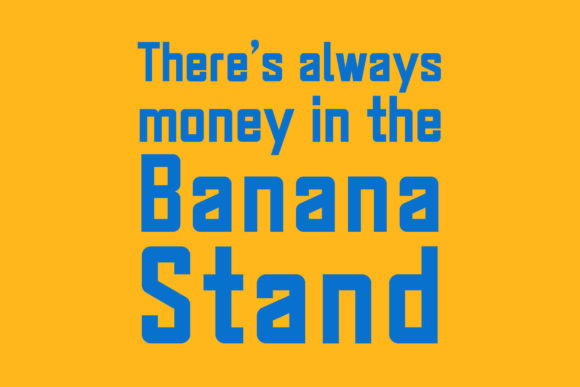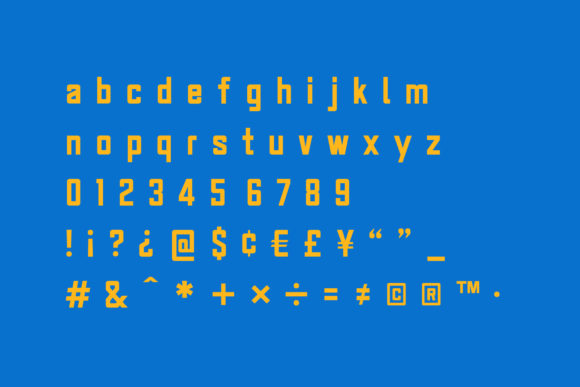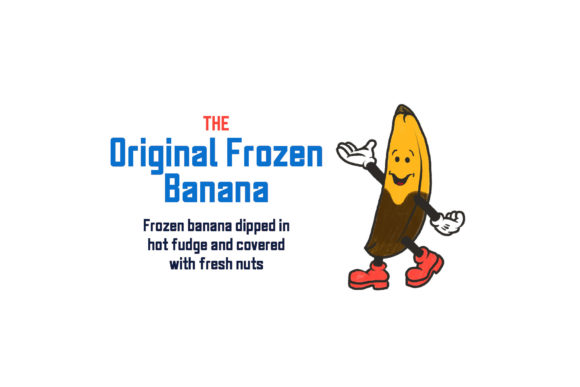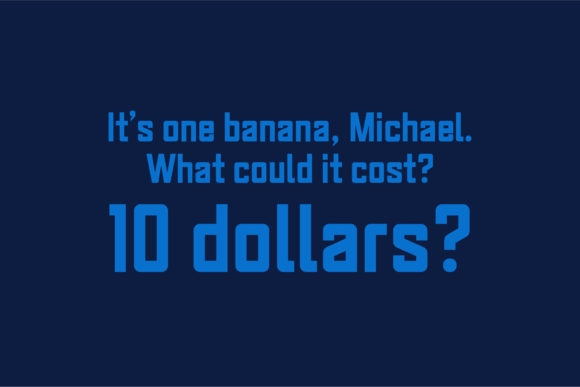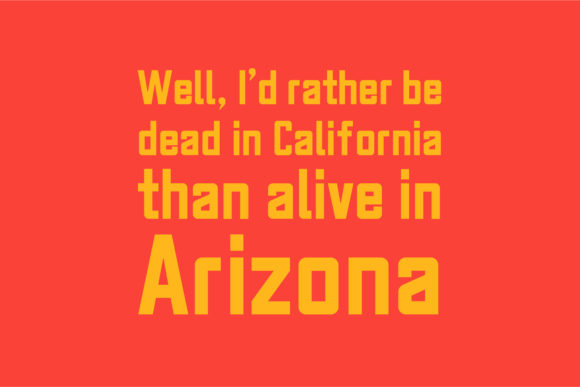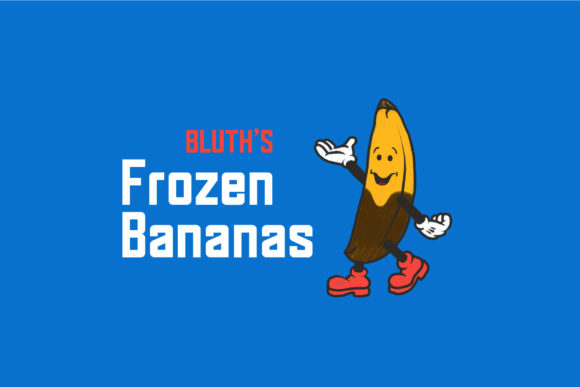
The Designer’s Delight: Assembly Low Font
I still remember the project like it was yesterday. I was working on a branding campaign for a local sports apparel store, and I was on a mission to find the perfect font. The client wanted something bold, something that screamed energy and dynamism. I scoured the internet, tried out dozens of fonts, but nothing seemed quite right. That was until I stumbled upon Assembly Low.
As soon as I laid eyes on it, I knew I had found the one. The bold, condensed letters seemed to scream athleticism, but at the same time, they had a versatility that I couldn’t quite put my finger on. Fast forward a few weeks, and I’m still obsessed with this font. In this article, I’ll share my love for Assembly Low, its features, and how to make the most of it in your designs.
• ✨ Bold and attention-grabbing: Assembly Low is not for the faint of heart. It’s a statement font that demands attention.
• ✅ Condensed and versatile: Whether it’s a logo, a headline, or a short paragraph, Assembly Low adapts beautifully to different applications.
• 💥 Unique character: The font has a distinct personality that sets it apart from more generic bold fonts.
⚠️ While Assembly Low is incredibly versatile, it’s not the best choice for body text or long paragraphs. Its boldness and condensed nature make it better suited for headlines and short bursts of text.
🤔 Some users might find the font a bit limited in terms of OpenType features, but we’ll get into that later.
Assembly Low comes with a range of OpenType features that can elevate your designs. Here are a few to look out for:
• Stylistic Alternates: These offer variations of the font that can add a touch of personality to your text.
• Glyphs: Assembly Low includes a range of glyphs that can be used to add visual interest to your designs.
Assembly Low was inspired by vintage lettering found in athletics. The designer wanted to create a font that captured the energy and dynamism of sports branding, but also had a versatility that would allow it to adapt to other applications. The result is a font that’s both bold and beautiful.
Q: What is Assembly Low font?
A: Assembly Low is a bold, condensed typeface inspired by vintage lettering found in athletics.
Q: Is Assembly Low suitable for body text?
A: No, Assembly Low is better suited for headlines and short bursts of text. Its boldness and condensed nature make it less suitable for body text or long paragraphs.
Q: Is Assembly Low available in different weights?
A: No, Assembly Low is primarily available in a single weight, but its boldness and condensed nature make it perfect for headlines and titles.